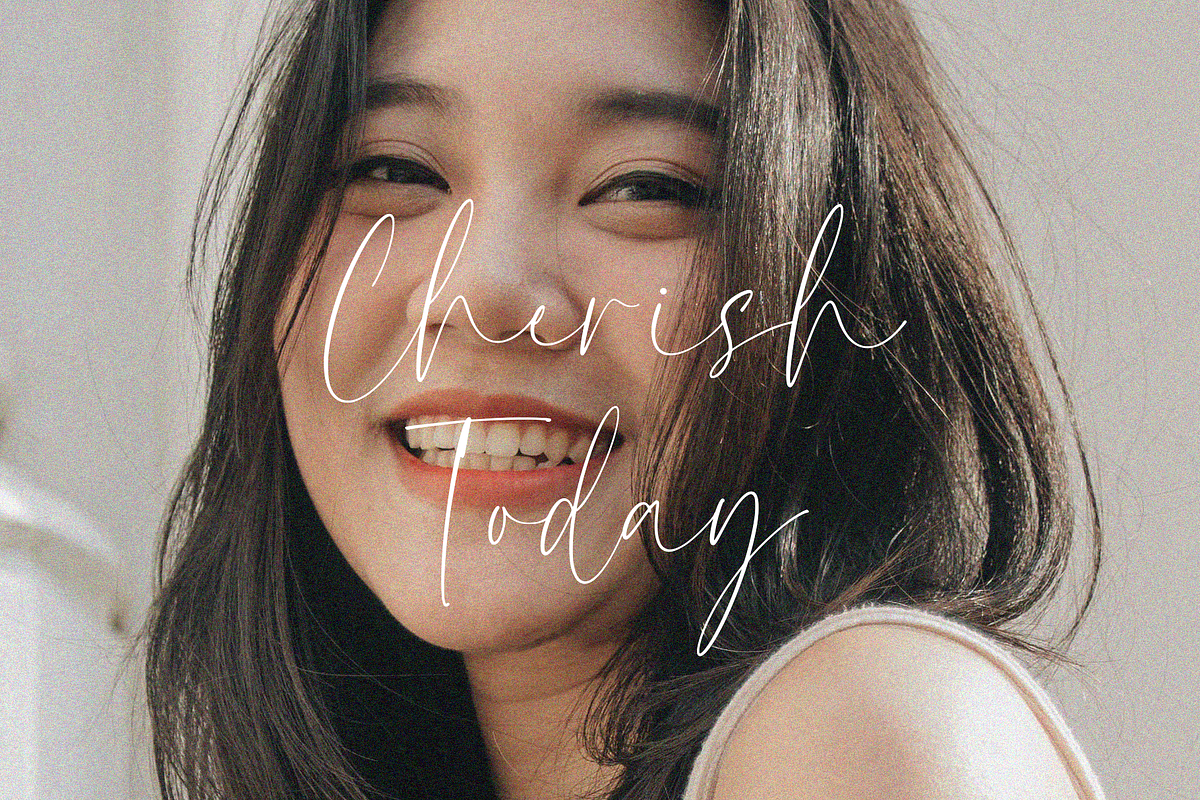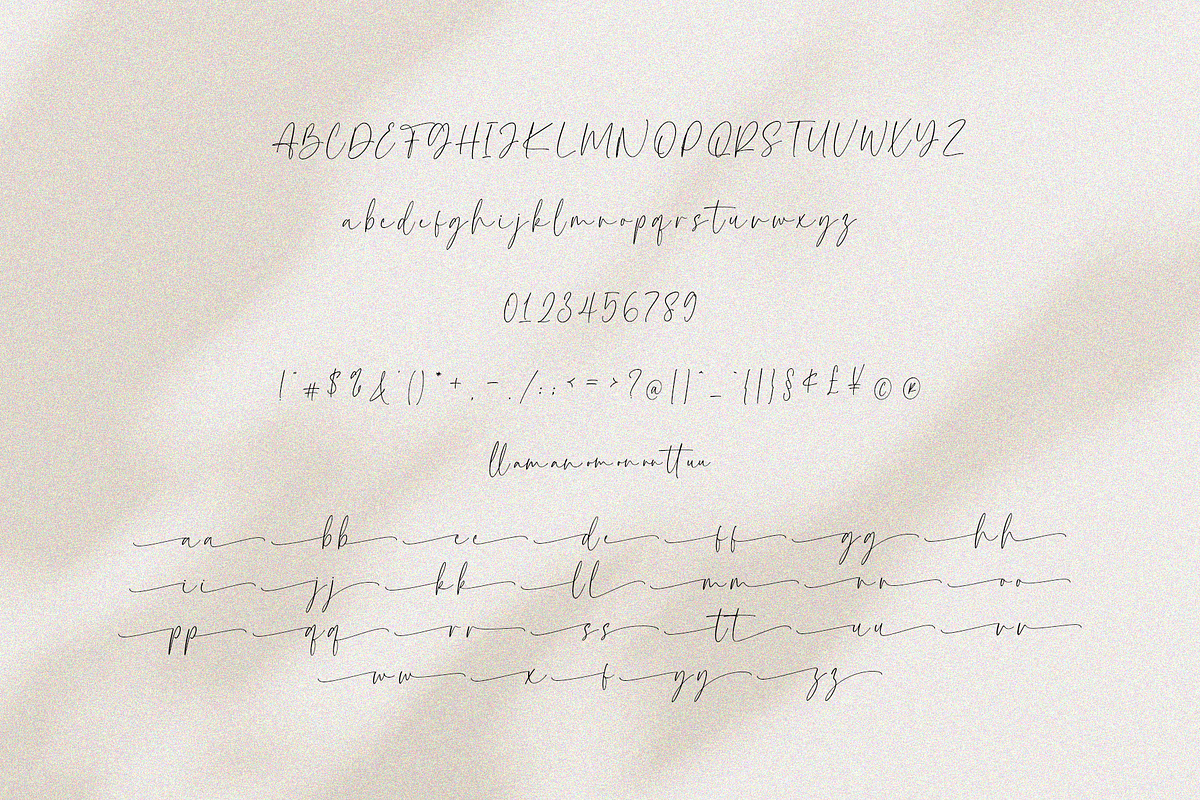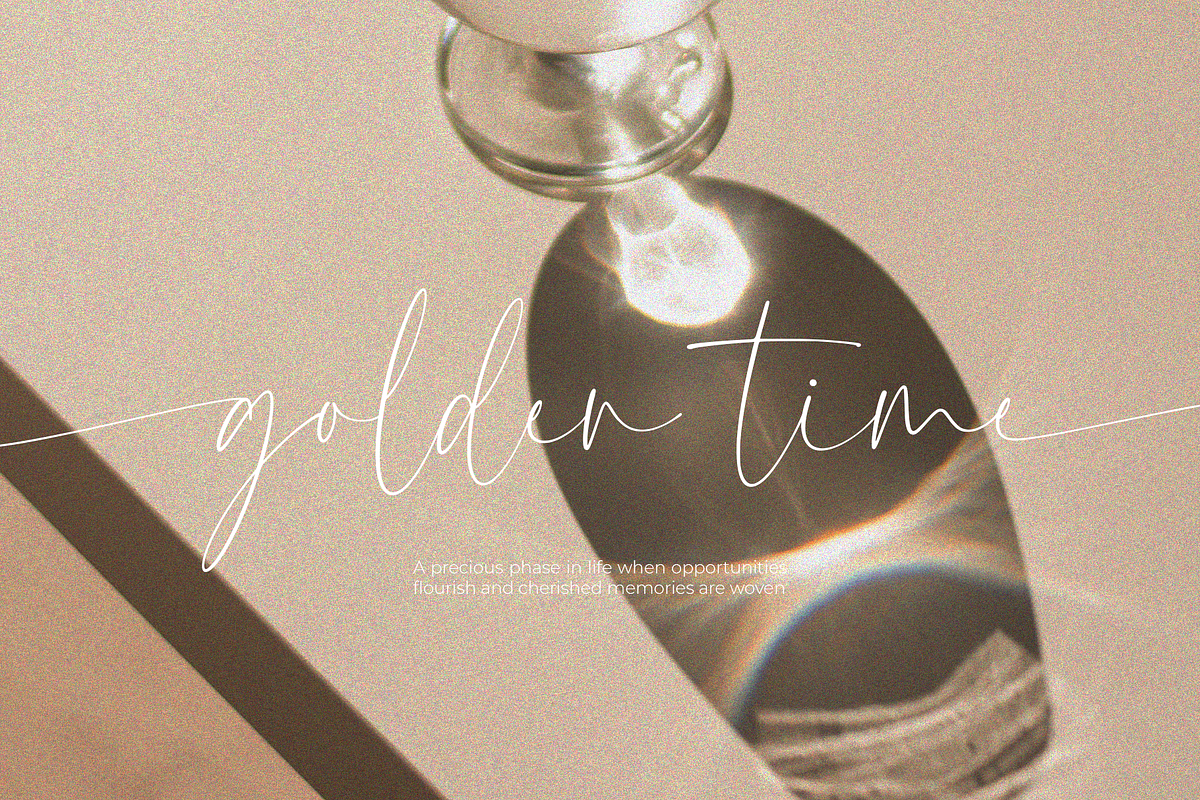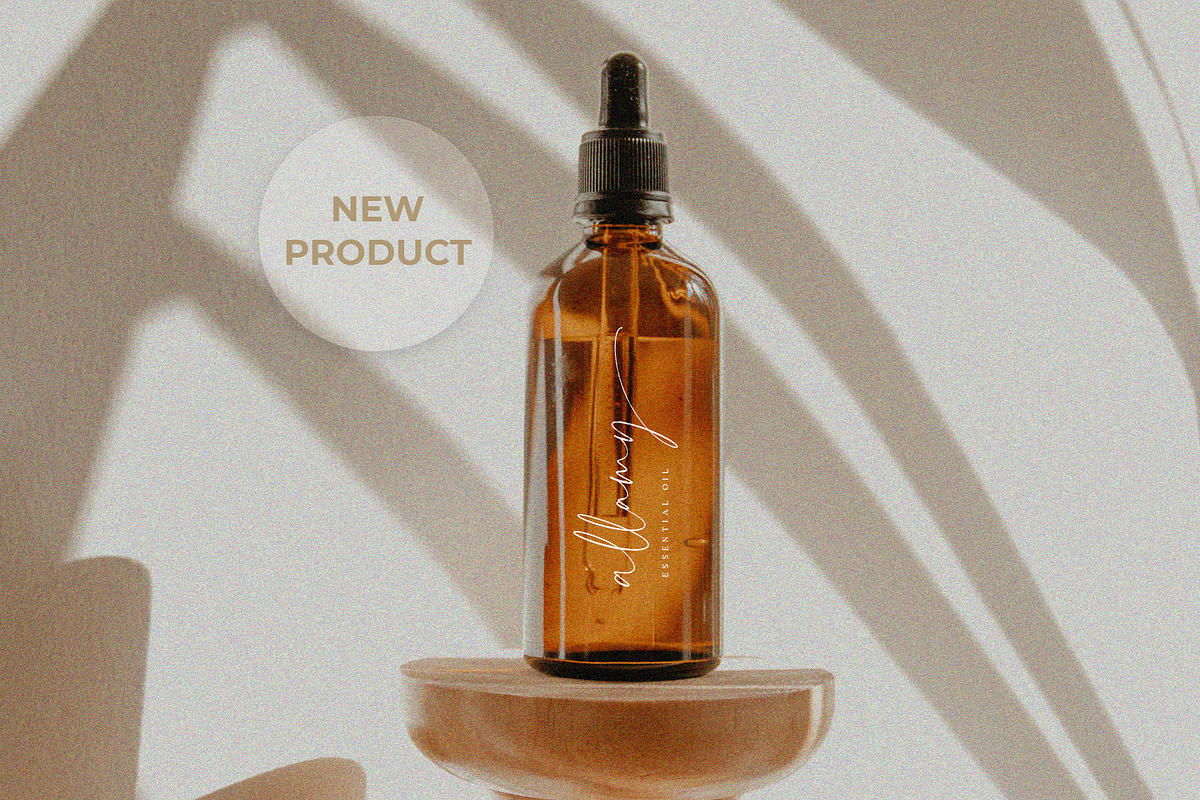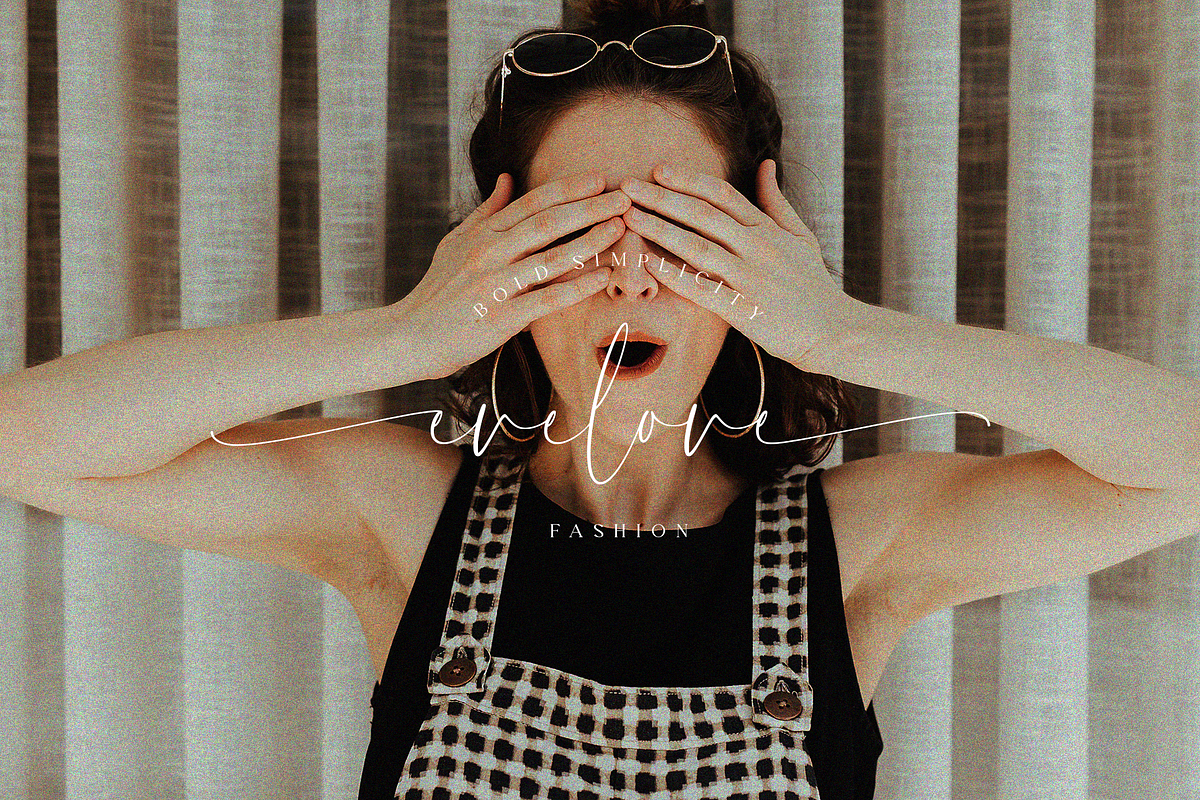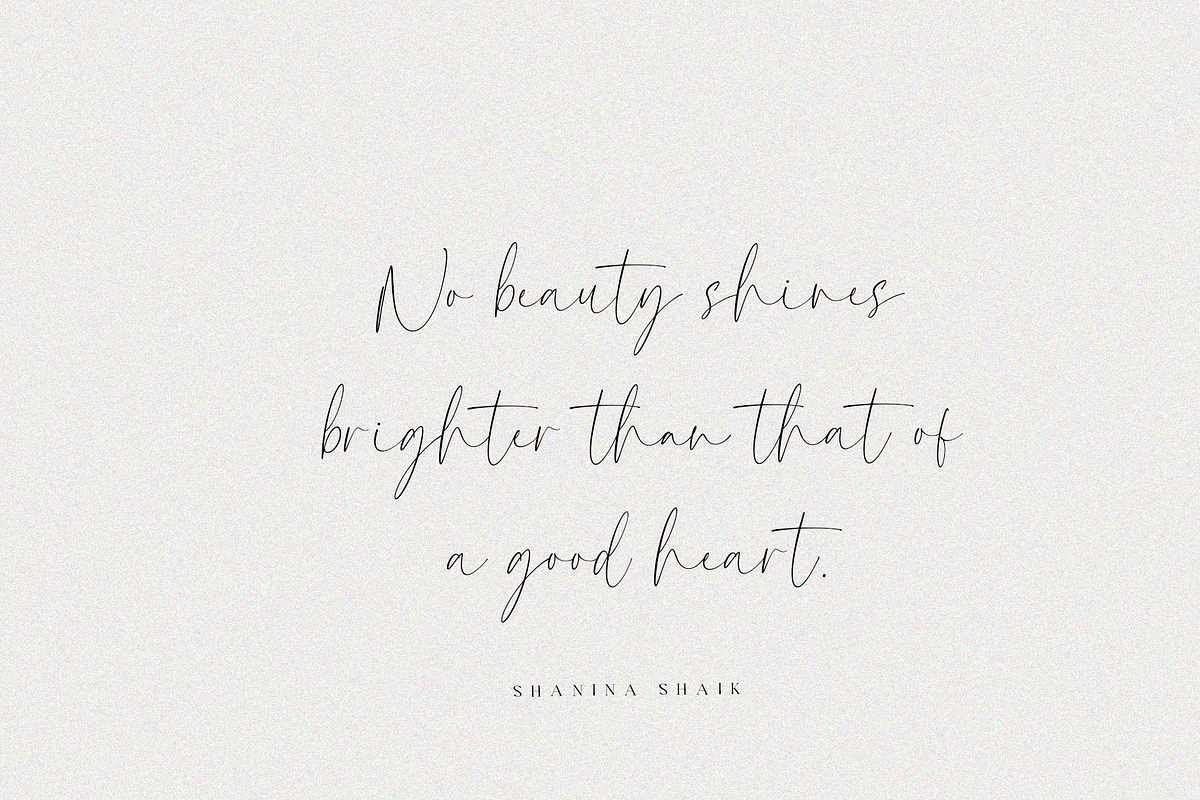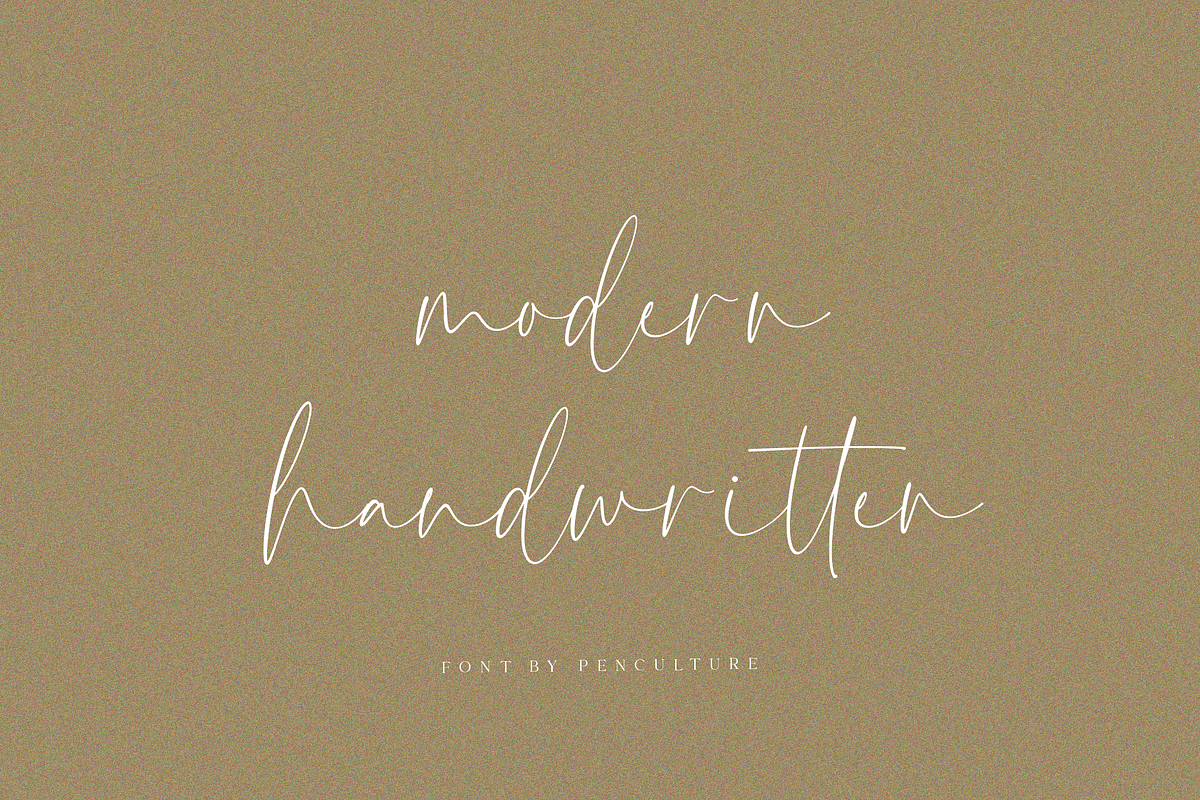
Charlotte - Elegant Calligraphy Font
Introducing "Charlotte" a mesmerizing calligraphy font born from the grace of handcrafted elegance. With its natural, handwritten essence, Charlotte weaves a spellbinding tapestry of fluid strokes and delicate curves. Adorned with enchanting ligatures and captivating beginning and ending swashes, this font radiates beauty and adds a touch of timeless charm to any design.
- Uppercase and lowercase letter
- Number and punctuation
- Sweet Ligature
- Lovely beginning and ending swashes